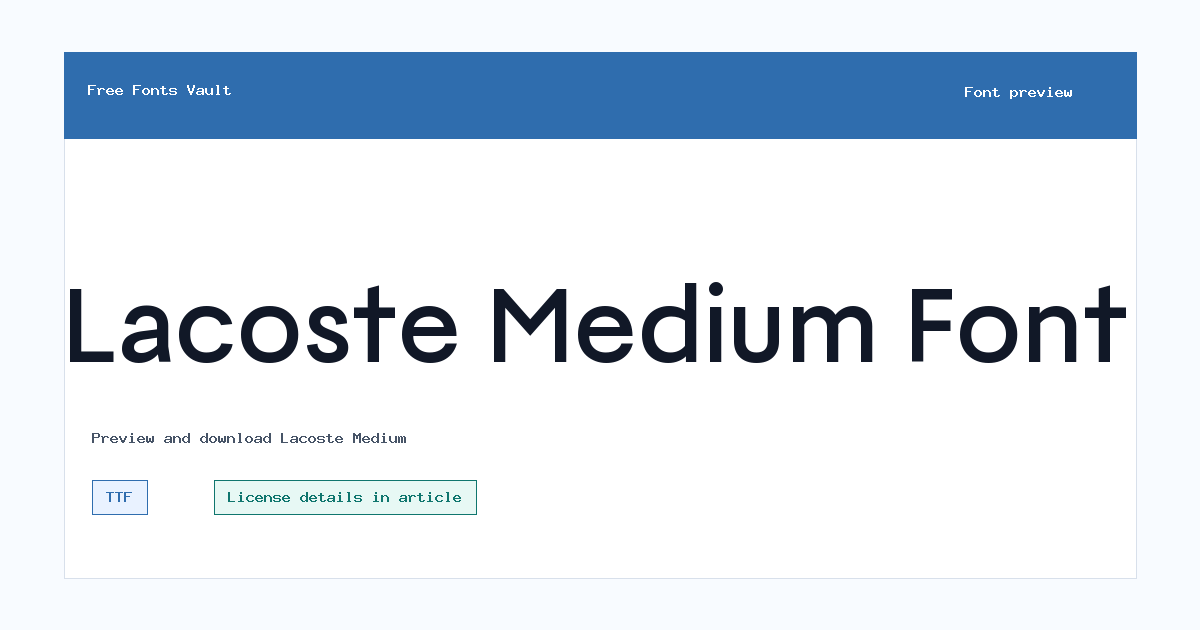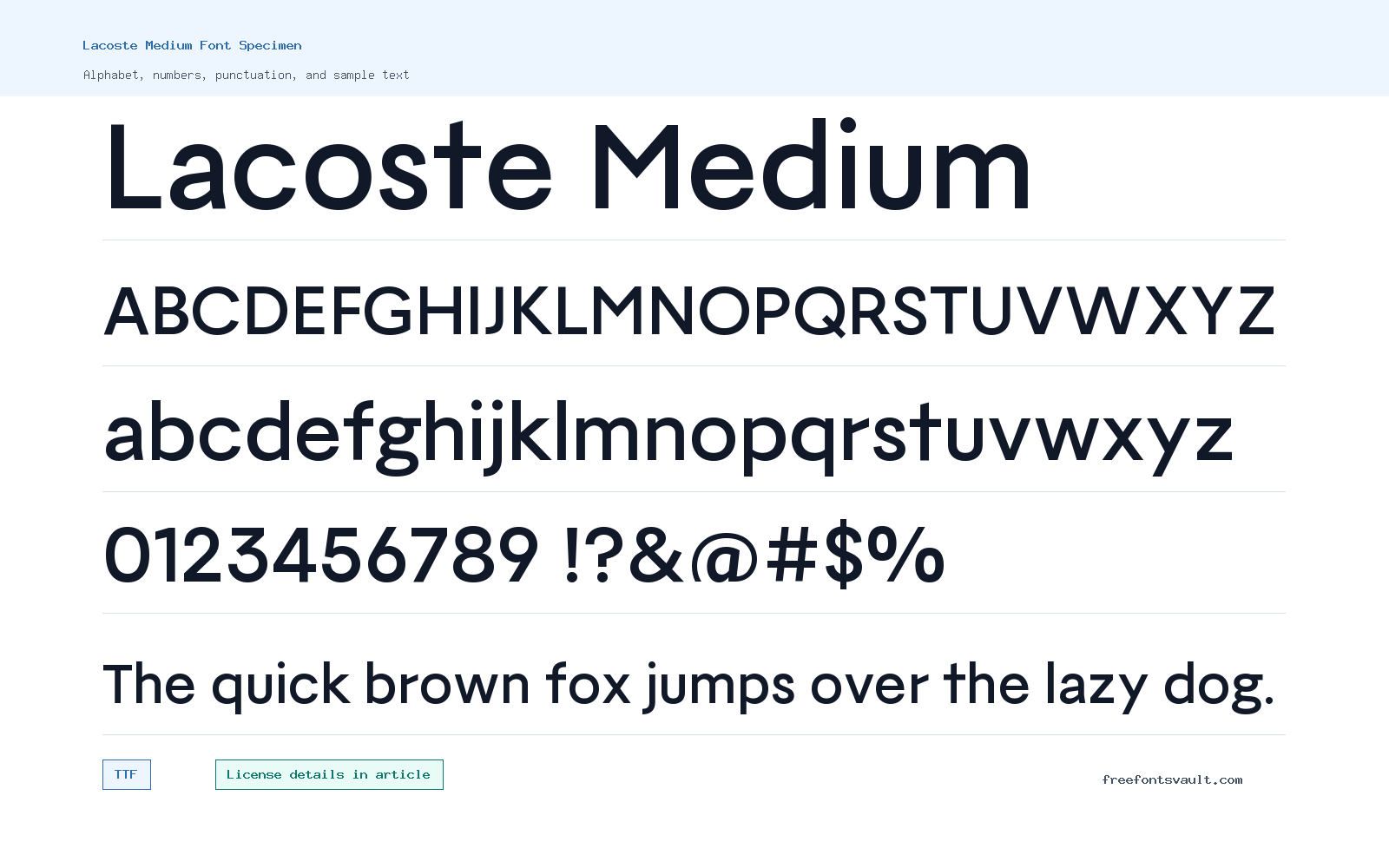
Lacoste Medium
Lacoste Medium Font
Lacoste Medium is a medium-weight TTF sans serif style credited to Christophe Badani, best tested carefully for short brand-style text.
About Lacoste Medium
Lacoste Medium has a clean, controlled look that suits short text previews such as names, labels, headings, and simple wordmark mockups. The listed 500 weight gives it more presence than a regular style without becoming as heavy as a bold face. Use the preview with the exact wording you plan to set, because medium-weight sans serifs depend heavily on spacing and scale.
• Medium 500 weight in a normal regular-style variant.
• Clean sans serif appearance for short headings, labels, and mockup text.
• Designer credit to Christophe Badani, with typophage.com listed as the designer website.
• Short headlines, labels, menu text, and clean wordmark previews.
• Testing medium-weight sans serif spacing before choosing final typography.
• Minimal posters, social graphics, and title treatments with limited text.
• Pairing with a more neutral body font for supporting copy.
What weight is Lacoste Medium?
The font is listed with a 500 weight, commonly treated as medium.
What is Lacoste Medium best used for?